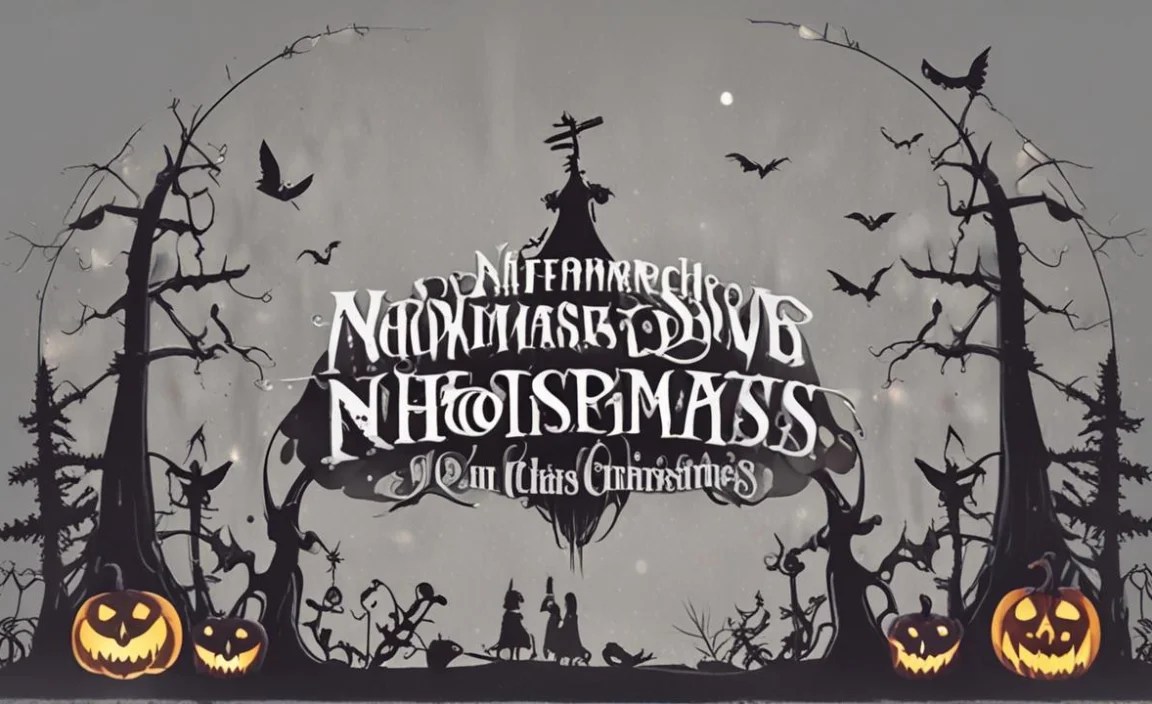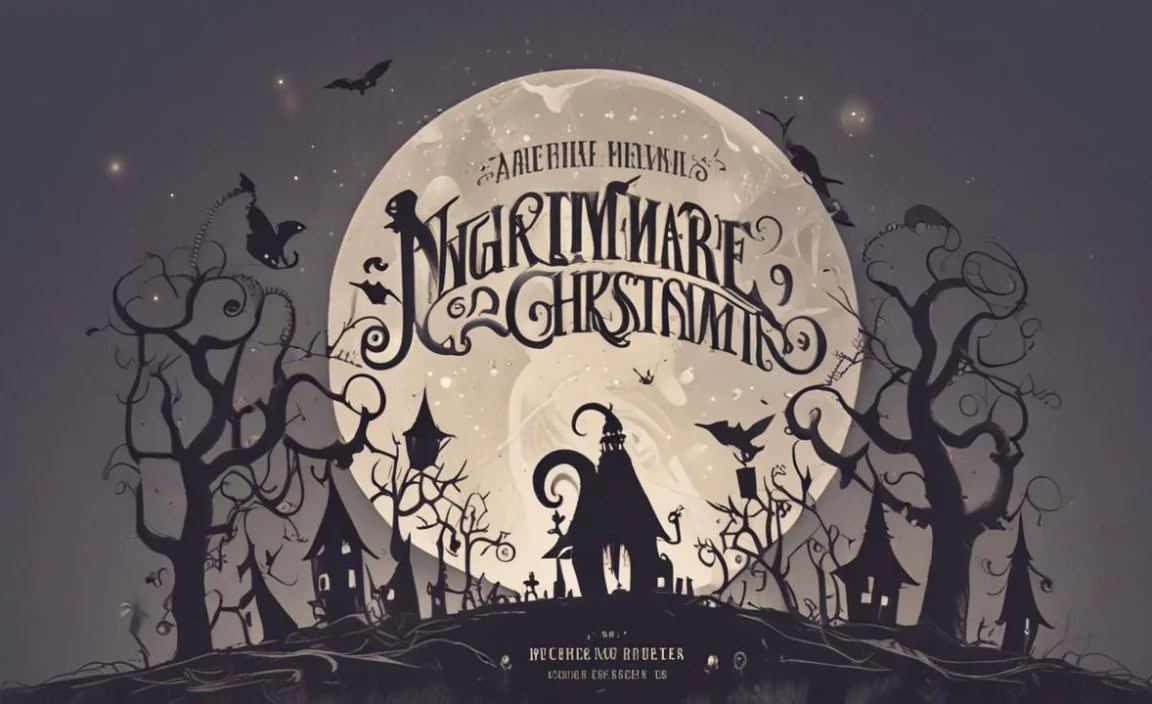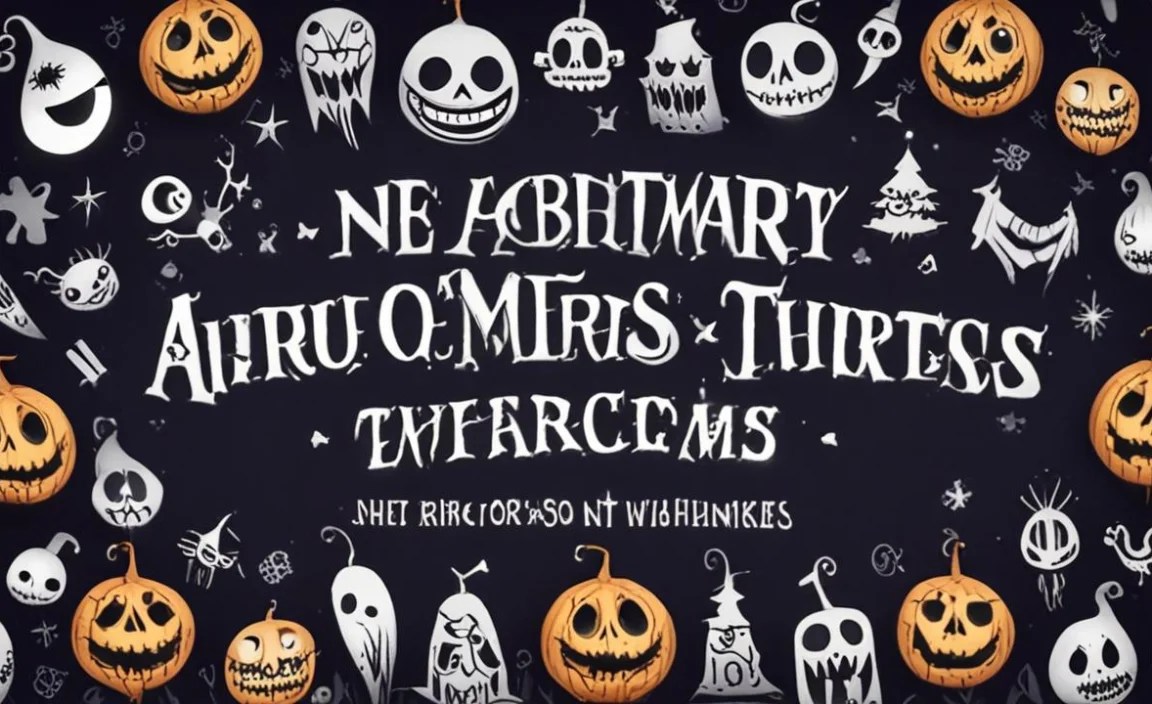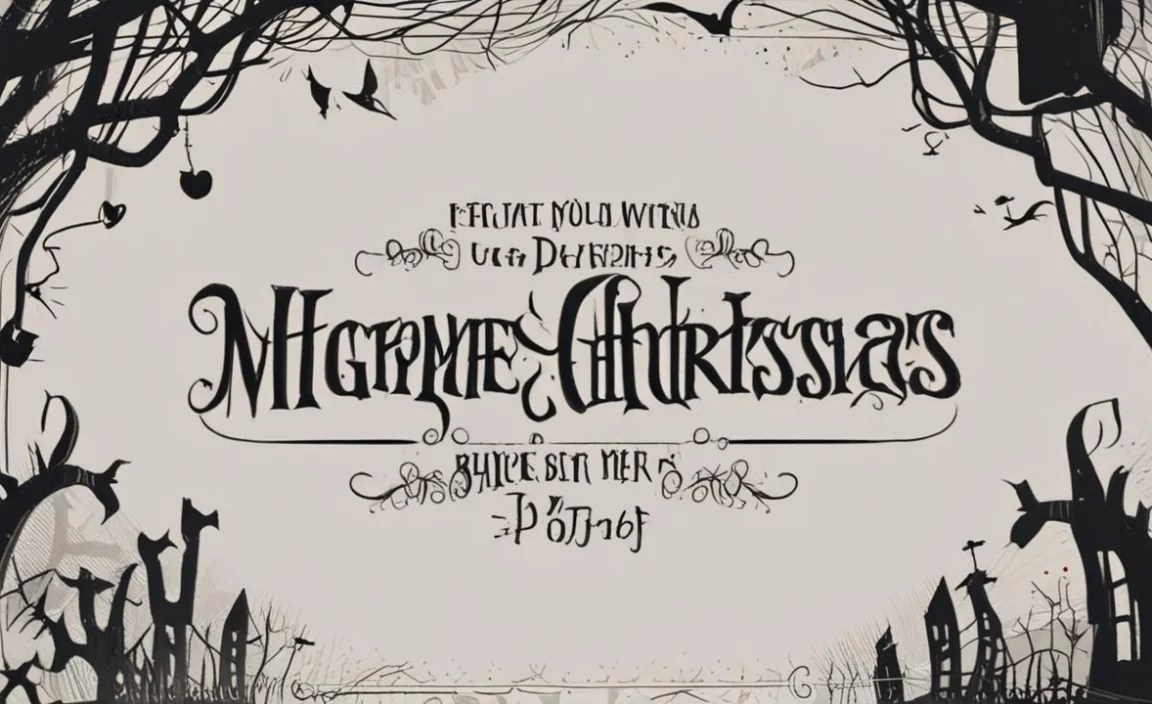
The Nightmare Before Christmas Font is inspired by the unique, spooky, and whimsical typography seen in the title and promotional materials of Tim Burton’s The Nightmare Before Christmas (1993).
Designed by Filmhimmel, this typeface brings to life the eerie charm of the beloved film, perfect for Halloween or Christmas-themed projects. Known for its jagged, quirky style, it captures the essence of the movie’s Halloween and Christmas worlds, like Halloweentown and Christmas Town, with a touch of gothic and fantasy flair.
Types of Nightmare Before Christmas Font (Font Family)
- Nightmare Before Christmas Regular: The standard version of the font that closely resembles the one used in the film’s posters and credits.
Applications of Nightmare Before Christmas Font
- Movie Posters: Perfect for creating posters or fan art inspired by The Nightmare Before Christmas.
- Holiday Themed Projects: Ideal for Halloween and Christmas-themed designs, parties, and decorations.
- Text Graphics and Logos: Great for making spooky text designs and logos.
Nightmare Before Christmas Font in Use
- Fan Creations: Fans of Tim Burton’s work commonly use them to recreate the film’s iconic title.
- Decorative Uses: Featured in banners, greeting cards, and other holiday-themed content.
- Online Platforms: Used in websites and graphics related to the movie or similar themes.
Features of the Nightmare Before Christmas Font
- Gothic and Whimsical: A combination of dark, gothic elements and quirky, playful forms.
- Ideal for Halloween and Christmas: Perfect for creating text that matches the eerie, festive spirit of both holidays.
The Nightmare Before Christmas Font is a unique, fan-made typeface that reflects the Nightmare Before Christmas movie’s distinctive, spooky, and whimsical design style. Whether used in fan art, holiday decorations, or personal projects, this font captures the magic of Tim Burton’s beloved film. With its playful yet eerie appearance, it’s a must-have for anyone looking to bring a touch of Halloween or Christmas cheer to their creative work.
The Nightmare Before Christmas Font is primarily used for creating fan art, posters, and party decorations. It’s also ideal for any themed content related to the Nightmare Before Christmas movie, including invitations or holiday designs featuring iconic characters like Jack Skellington and settings such as Halloween Town and Christmas Town.
4. What makes the Nightmare Before Christmas Font unique?
This movie font is unique because it blends spooky, gothic elements with a quirky, playful style, embodying the whimsical yet eerie atmosphere of Tim Burton’s Nightmare Before Christmas. It captures the essence of Halloween Town and Christmas Town, reflecting the modern font design with a nostalgic, animated touch.